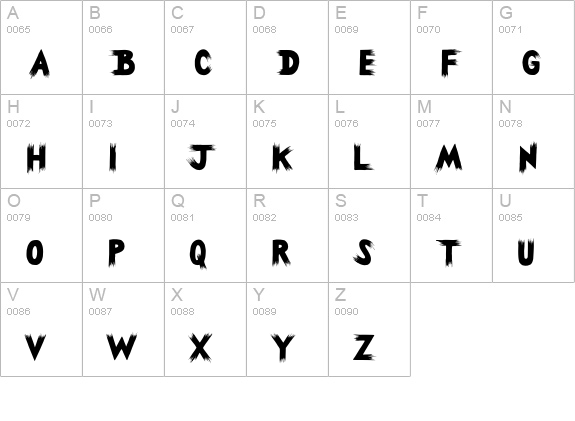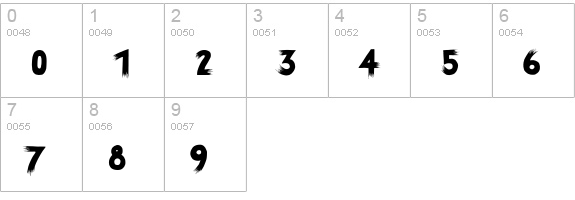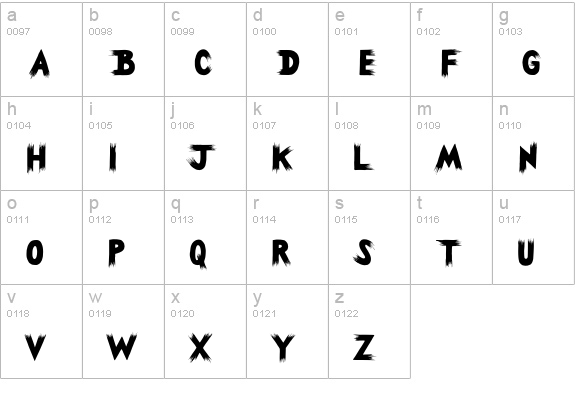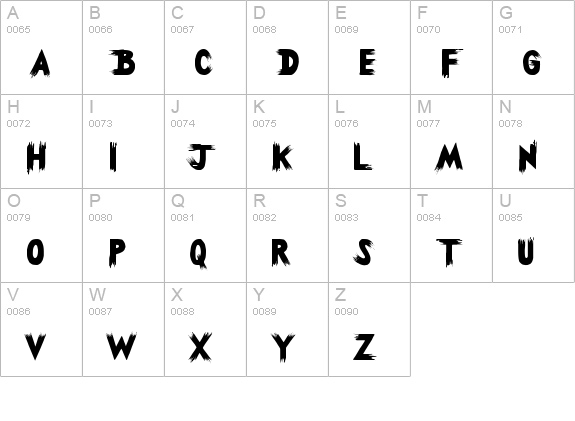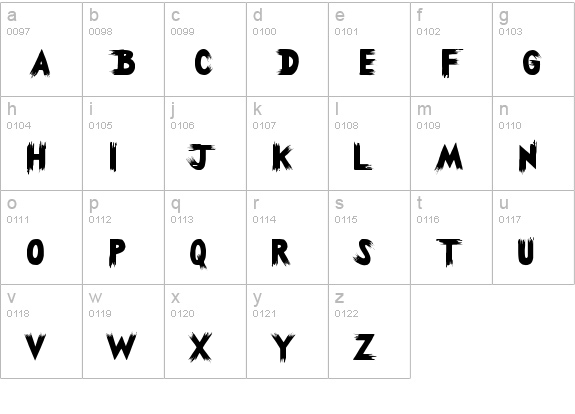
CK Mystery Font Details
Introducing CK Mystery font, a whimsical and enchanting typeface that adds a touch of intrigue to any project. This unique font features intricate lines and mysterious curves that evoke a sense of curiosity and wonder. Perfect for creating eye-catching designs, CK Mystery font is sure to captivate your audience and leave a lasting impression. And the best part? CK Mystery font is available for free download at FontsMarket.com! Simply visit the website to add this captivating font to your collection and start using it in your creative projects today. Let the magic of CK Mystery font inspire your imagination and bring a touch of mystery to your designs.